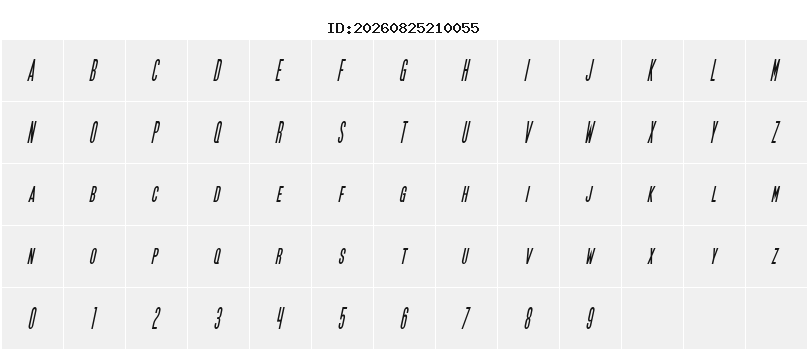
SF Movie Poster Condensed Preview
• Font Name: SF Movie Poster Condensed
• Font Style: Bold Oblique
• Font ID: ShyFontsTypeFoundry: SF Movie Poster Condensed Bold Oblique: 2000
• Full Font Name: SF Movie Poster Condensed Bold Oblique
• PostScript Name: SFMoviePosterCondensed-BoldOblique
• Designer: ShyFonts Type Foundry
• Description: SF Movie Poster Condensed Bold Oblique is a trademark of the ShyFonts Type Foundry.
SF Movie Poster Condensed.ttf is a modern, elegant sans-serif font designed for ultimate readability and visual harmony. Perfect for branding, headlines, web design, and print materials.